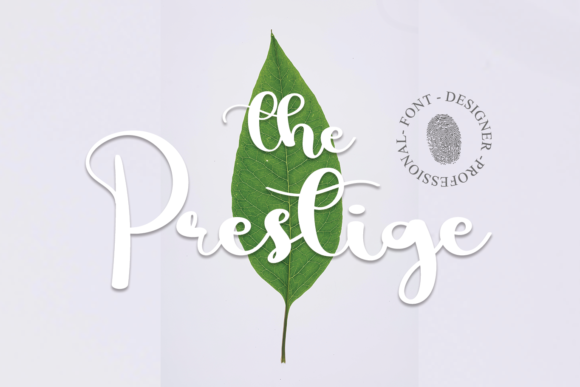
Feast your eyes on Prestige Font, the majestic script font that exudes elegance and sophistication. Crafted with meticulous care by the renowned Erik Studio, Prestige stands tall as a timeless masterpiece, ready to elevate your digital presence to new heights.
Indulge in the intricate details and graceful curves that define Prestige, a font that speaks volumes without uttering a single word. Its exquisite design captivates the senses, leaving an indelible mark on the hearts and minds of your audience.
Let Prestige be your secret weapon in the battle for attention online. Whether you're a seasoned designer or just starting out, this font is your gateway to creating designs that resonate with your audience. Its versatility knows no bounds, adapting seamlessly to a myriad of projects, from captivating logos and branding to stunning social media graphics and eye-catching website designs.
Unleash the full potential of Prestige as you craft headlines that dance off the page, body copy that flows effortlessly, and quotes that leave a lasting impression. Each letterform has been meticulously designed to strike the perfect balance between readability and visual appeal, ensuring your message is conveyed with clarity and impact.
Prestige is not just a font; it's an experience. It's an invitation to let your creativity soar and leave an indelible mark on the digital landscape. Embrace the power of Prestige and watch as your designs transform into captivating works of art.
Step into the spotlight and let Prestige be your guide as you weave your words into captivating stories, create designs that captivate, and leave your audience in awe. Prestige is more than just a font; it's a passport to a world of creative possibilities, waiting to be explored.